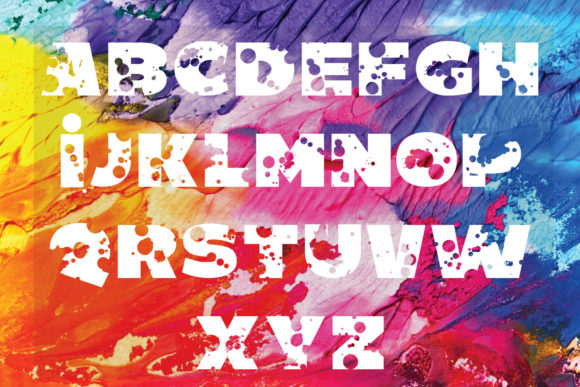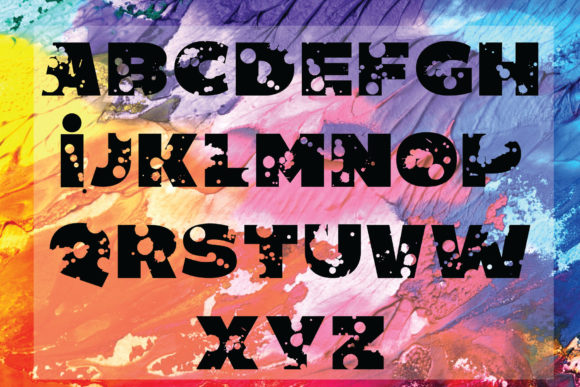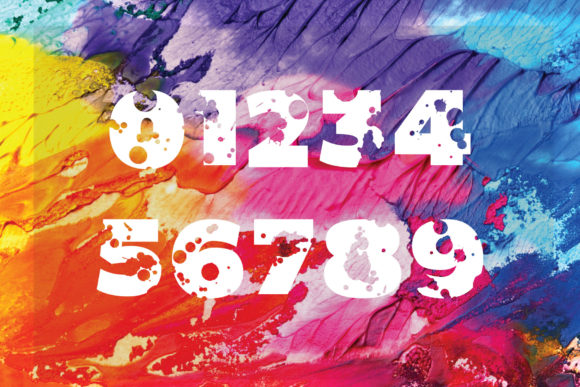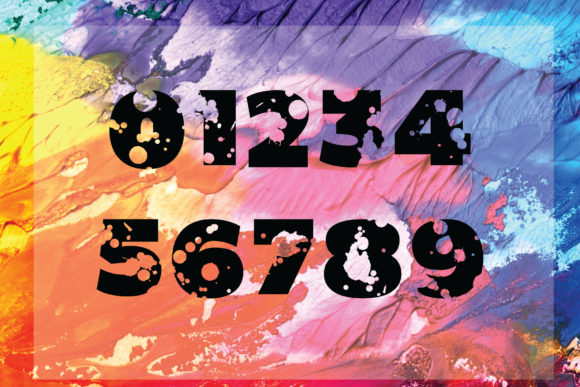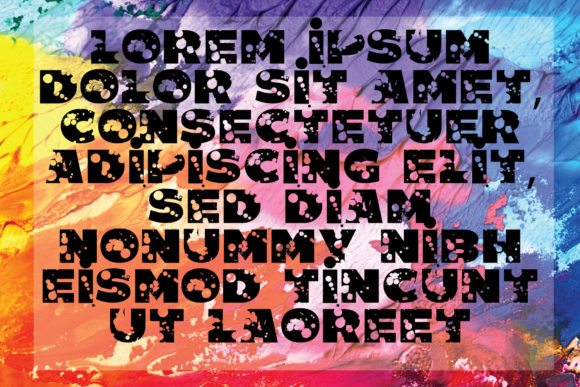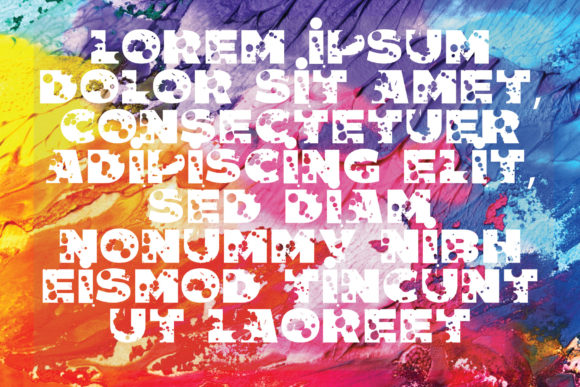
Introducing Brush Shake Off Font: The Ultimate Decorative Font for Bold Designs
Are you tired of using the same old fonts in your designs? Do you want to add a touch of personality and uniqueness to your projects? Look no further than Brush Shake Off Font, a bold, thick lettered yet incredibly cool decorative font that’s sure to take your designs to the next level.
What is Brush Shake Off Font?
Brush Shake Off Font is a decorative font that’s perfect for designers and crafters who want to add a bold and edgy touch to their projects. This font is characterized by its thick, brush-stroked letters that give it a unique and eye-catching appearance. Whether you’re working on a logo, a poster, or a digital project, Brush Shake Off Font is sure to make a statement.
Key Features of Brush Shake Off Font
- Bold and Thick Letters: Brush Shake Off Font features bold and thick letters that are perfect for making a statement in your designs.
- Decorative and Edgy: The font’s brush-stroked letters give it a decorative and edgy appearance that’s sure to grab attention.
- Easy to Read: Despite its bold and decorative appearance, Brush Shake Off Font is easy to read, making it perfect for use in a variety of projects.
- Versatile: Brush Shake Off Font can be used in a wide range of projects, from logos and posters to digital projects and more.
Why Use Brush Shake Off Font?
There are many reasons why designers and crafters should consider using Brush Shake Off Font in their projects. Here are just a few:
- Add Personality to Your Designs: Brush Shake Off Font is a unique and eye-catching font that’s sure to add personality to your designs.
- Stand Out from the Crowd: With its bold and decorative appearance, Brush Shake Off Font is sure to help your designs stand out from the crowd.
- Perfect for Bold Designs: If you’re looking to create a bold and eye-catching design, Brush Shake Off Font is the perfect choice.
How to Use Brush Shake Off Font
Using Brush Shake Off Font in your projects is easy. Here are a few tips to get you started:
- Pair it with Other Fonts: Brush Shake Off Font pairs well with other fonts, so don’t be afraid to experiment with different combinations.
- Use it for Headlines: Brush Shake Off Font is perfect for use in headlines, where its bold and decorative appearance can really make an impact.
- Experiment with Colors: Brush Shake Off Font looks great in a variety of colors, so don’t be afraid to experiment and find the perfect color for your design.
Brush Shake Off Font is a bold, thick lettered yet incredibly cool decorative font that’s perfect for designers and crafters who want to add a touch of personality and uniqueness to their projects. With its bold and edgy appearance, ease of use, and versatility, Brush Shake Off Font is sure to become a go-to font in your design arsenal. So why wait? Add Brush Shake Off Font to your projects today and see the difference it can make!
Here are a few tips and tricks to help you get the most out of Brush Shake Off Font:
- Use it for Large Text: Brush Shake Off Font is perfect for use in large text, such as headlines and titles.
- Experiment with Different Weights: Brush Shake Off Font comes in different weights, so experiment with different weights to find the one that works best for your design.
- Use it for Branding: Brush Shake Off Font is perfect for use in branding, where its bold and decorative appearance can help to create a memorable and eye-catching brand identity.